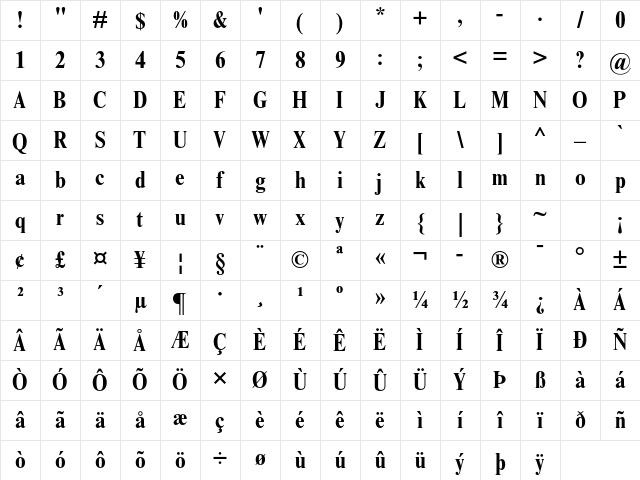
Times New Roman MT Std Bold Condensed
Style: Bold Condensed
Designer: Starling Burgess, Victor Lardent, Stanley Morison
Complete Times New Roman MT Std Bold Condensed glyph index. Displaying only characters natively supported by Times New Roman MT Std Bold Condensed font.
Design Context for Times New Roman MT Std
Times New Roman MT Std is a composed and adaptable typeface that performs quietly and consistently across a wide range of design contexts. Its bold stroke weight gives it real presence on the page. Its narrow stance lets it pack a punch even in space-constrained designs.